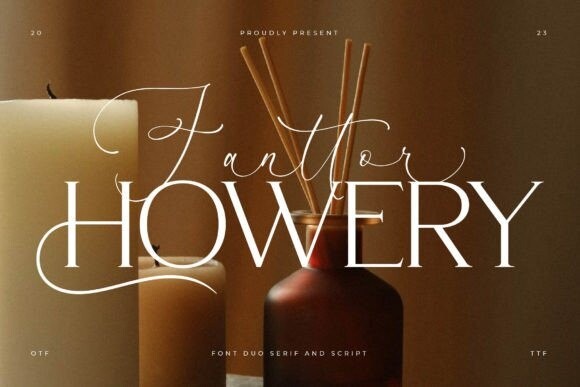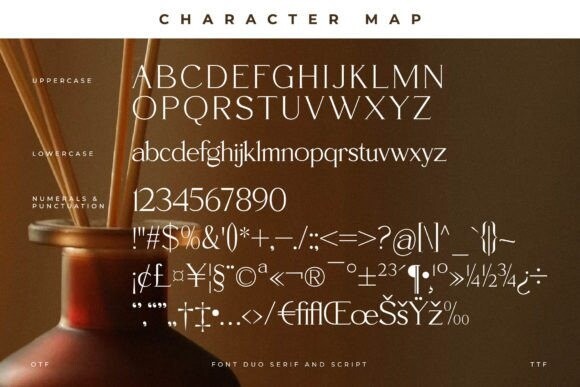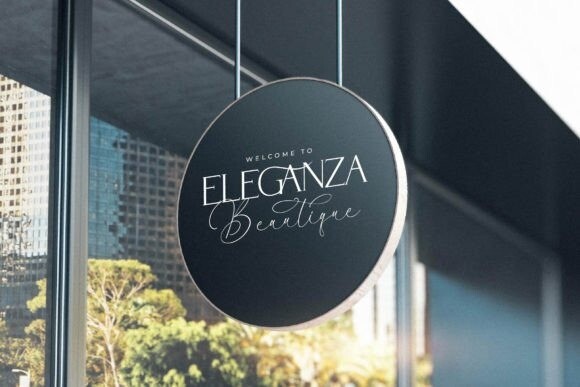
Fanttor Howery Font
Fanttor Howery Font Duo, a serif and script typeface that possesses its own unique style and a modern look. This typeface is perfect for elegant and luxurious logo design, book or movie titles, fashion brands, magazines, clothing, lettering, quotes, and much more.